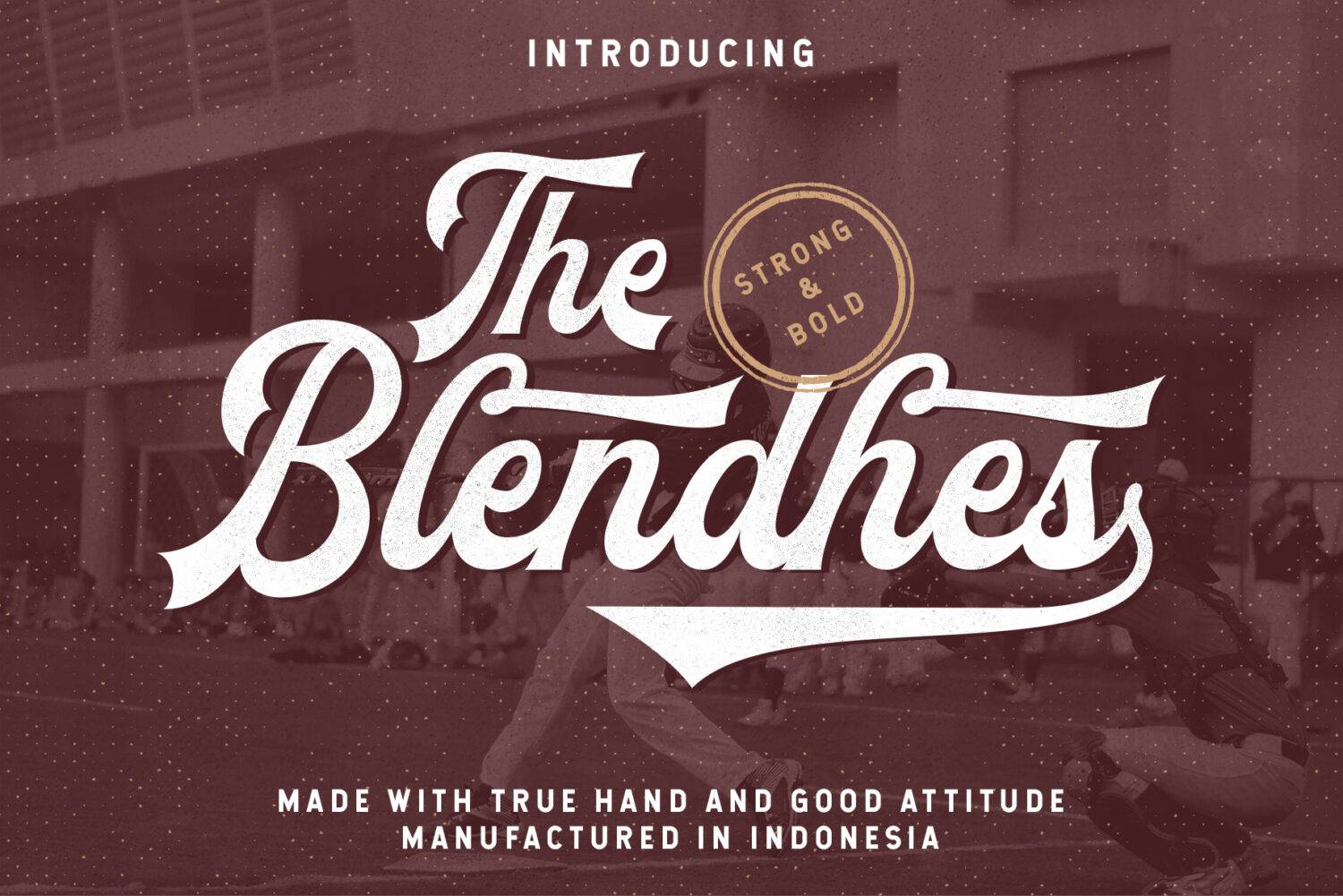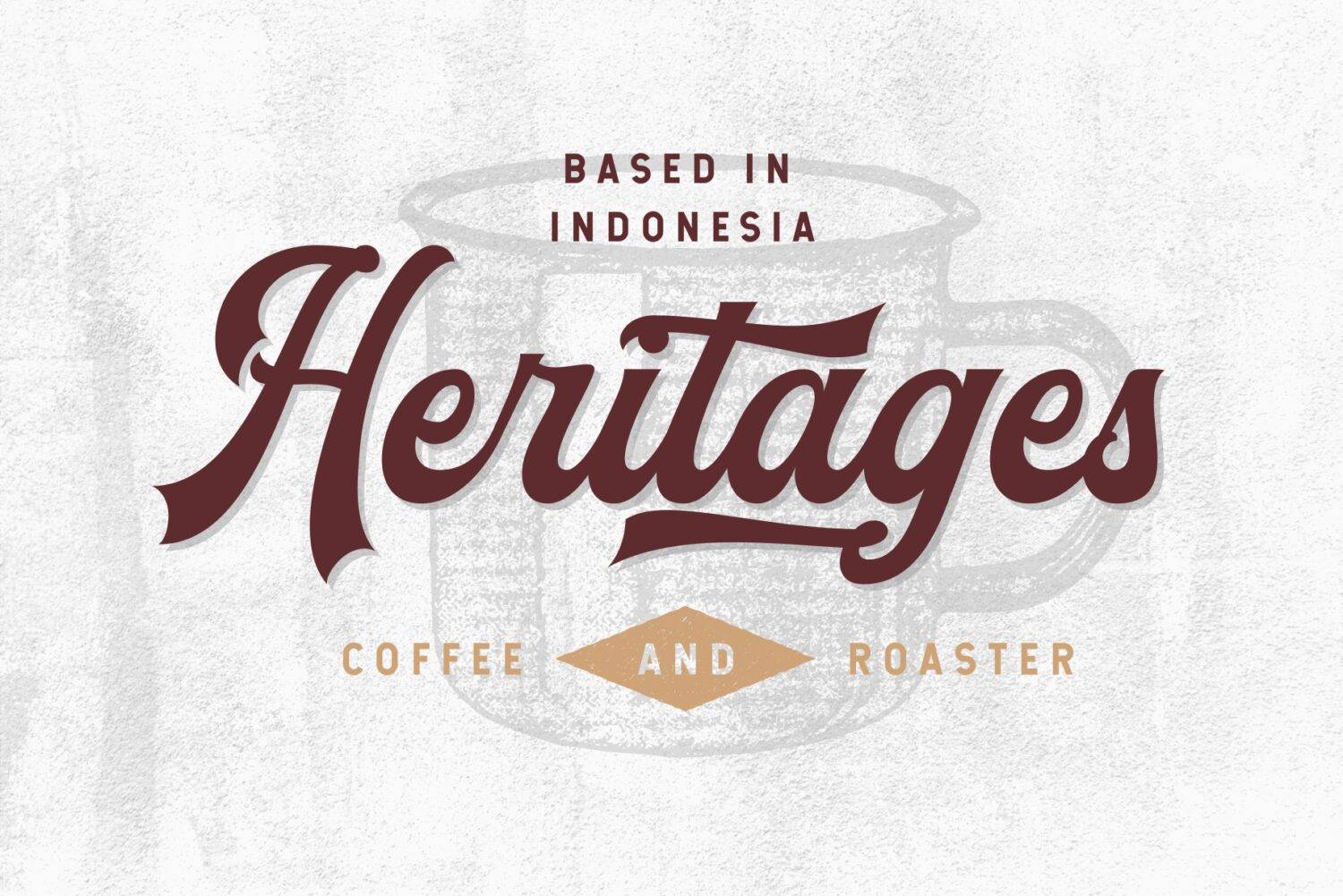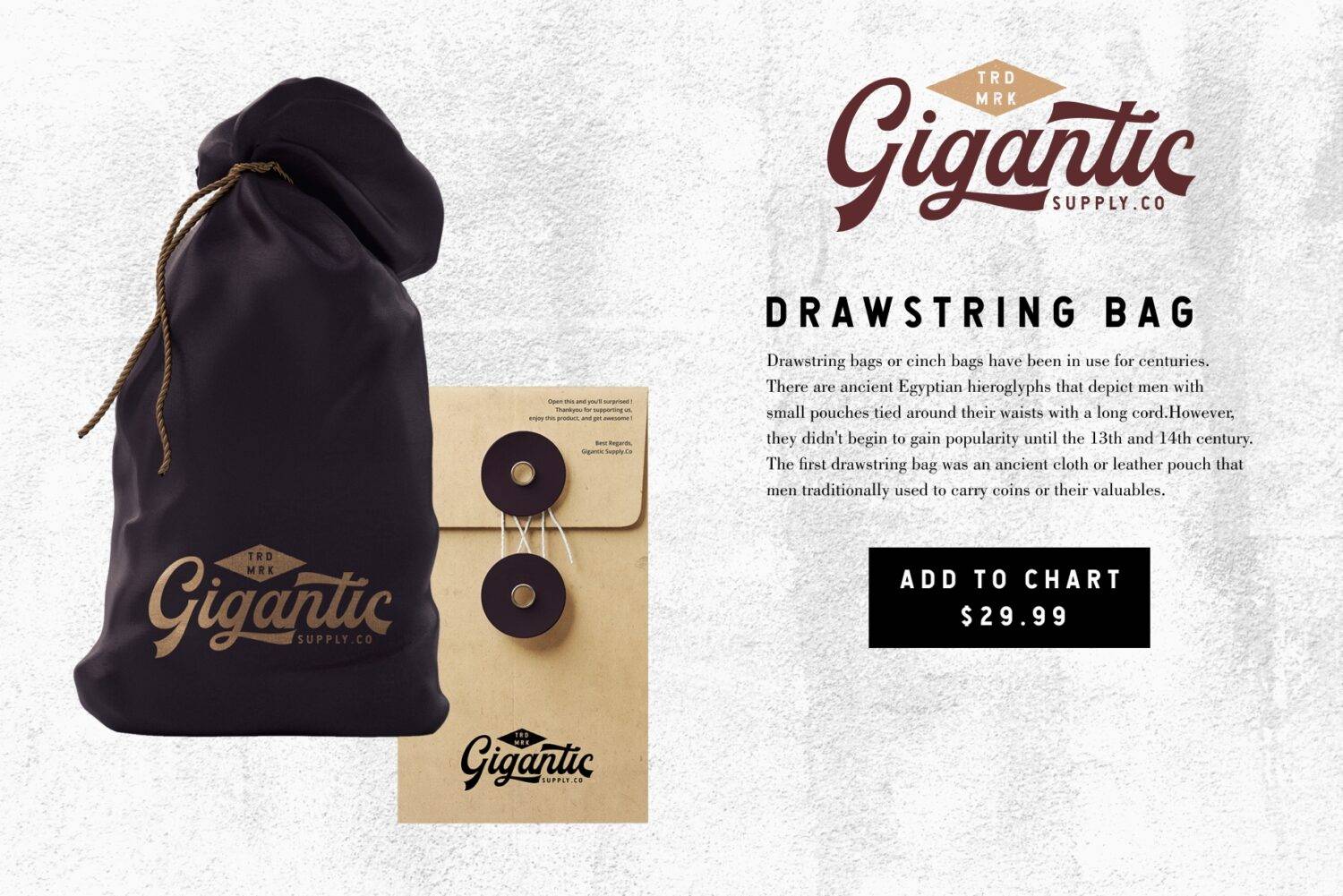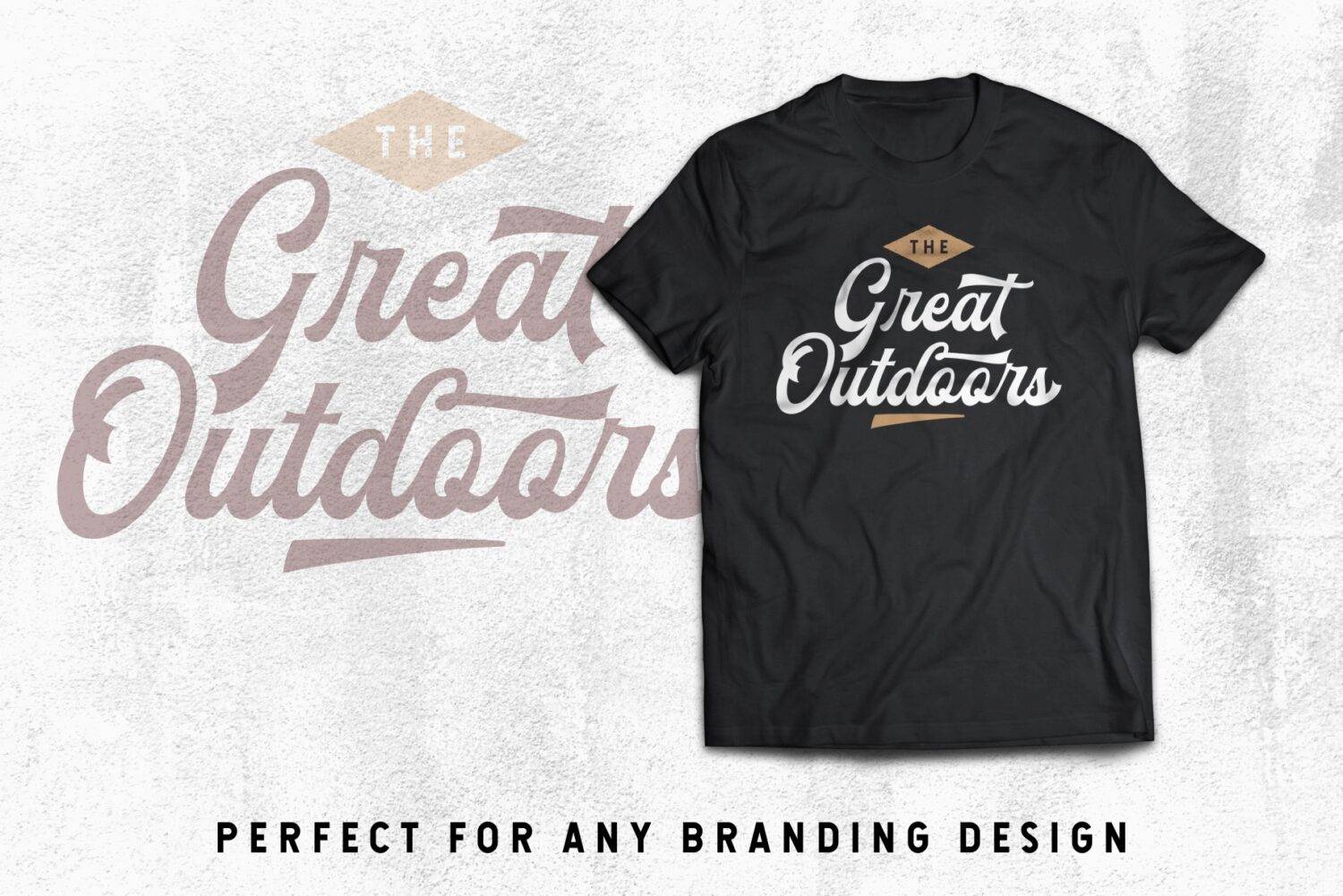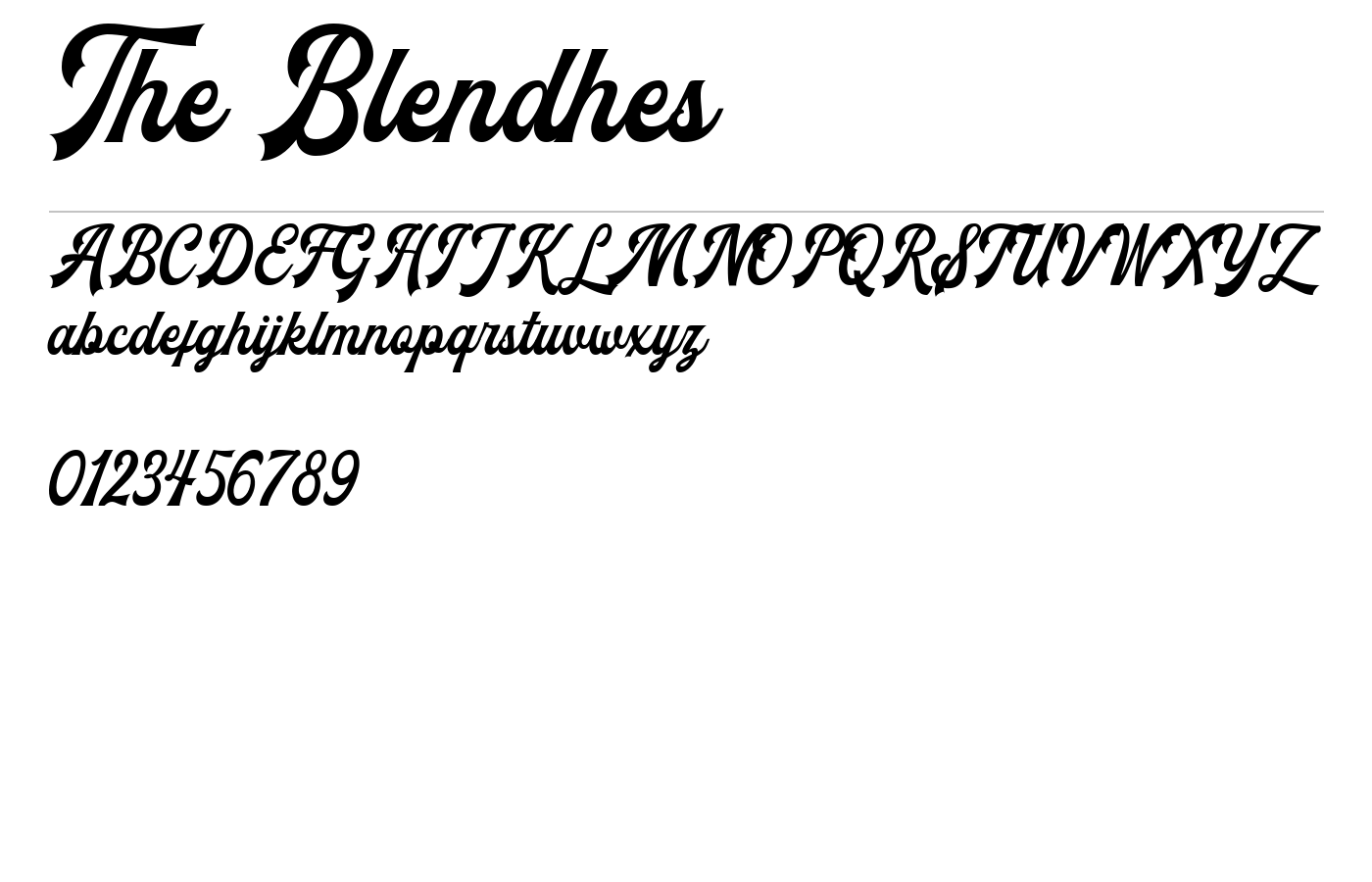
The Blendhes font is an elegant, cursive script with strong, flowing strokes and a moderate contrast between thick and thin lines. It features both uppercase and lowercase letters with graceful curves, adding a sophisticated, vintage feel that’s perfect for branding, invitations, and stylish headlines. Its refined, calligraphic style makes it ideal for projects seeking a classic yet dynamic touch.
The Blendhes Font
About The Blendhes Font
| Font family | The Blendhes Font |
| Release date | 2018-09-07 |
| Designer | Yudha Rahmat Ageng |